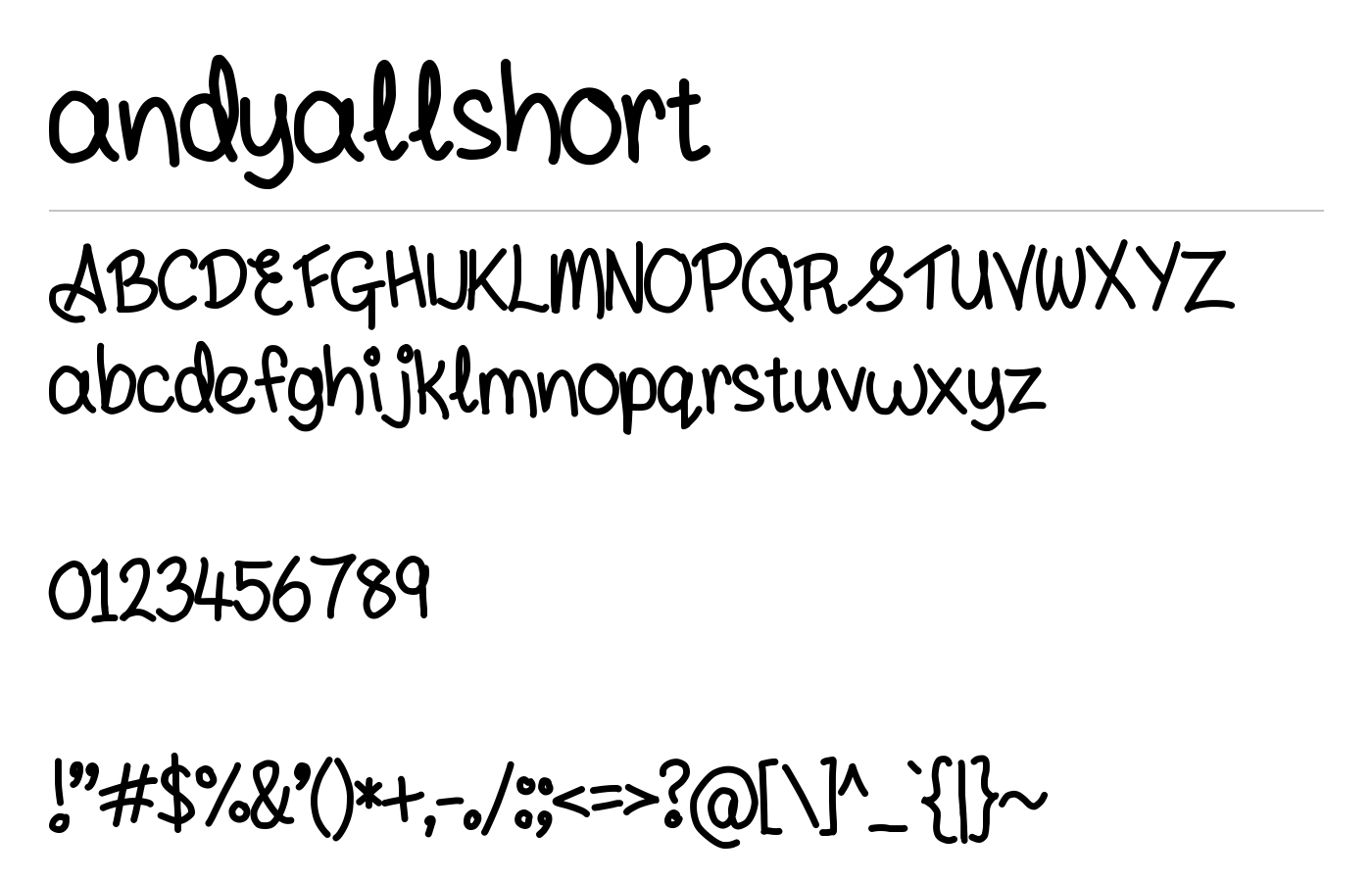
The Andyallshort font is a casual, handwritten sans serif with a playful and informal character. It features a light weight with irregular, rounded strokes and a slightly condensed width, giving it a friendly, approachable feel ideal for creative projects, children’s content, or personal branding. This font works well for headlines, invitations, and fun web designs where warmth and personality are desired.
andyallshort Font
About andyallshort Font
| Font family | andyallshort Font |